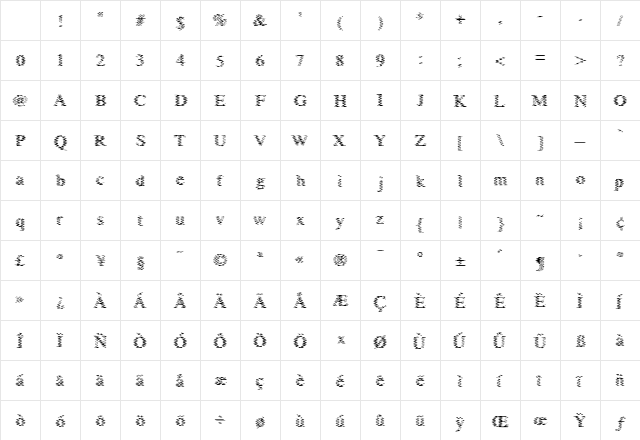
Singer carries the refined structure of traditional serif typography, with bracketed terminals and considered proportions that communicate credibility and craft.